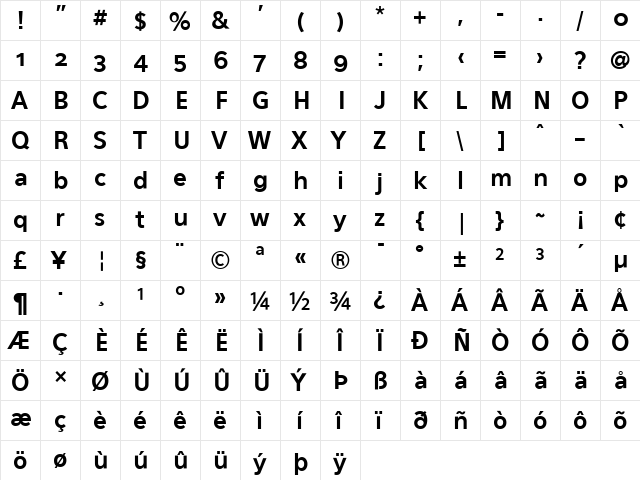
Eau Sans Bold Old-styled Figures
Design Context for Eau Typeface
Eau takes a measured approach to typography — its balanced proportions and neutral character make it a reliable workhorse for both digital and print work. The heavy weight commands attention and anchors typographic hierarchies.